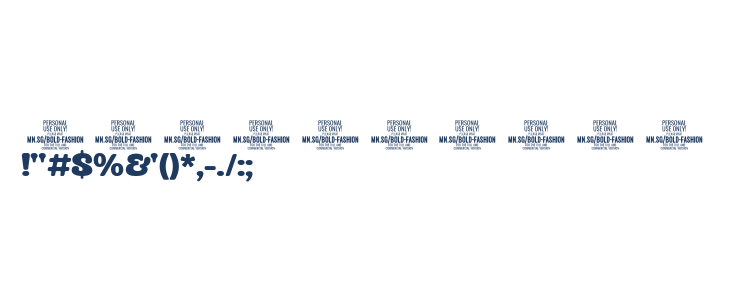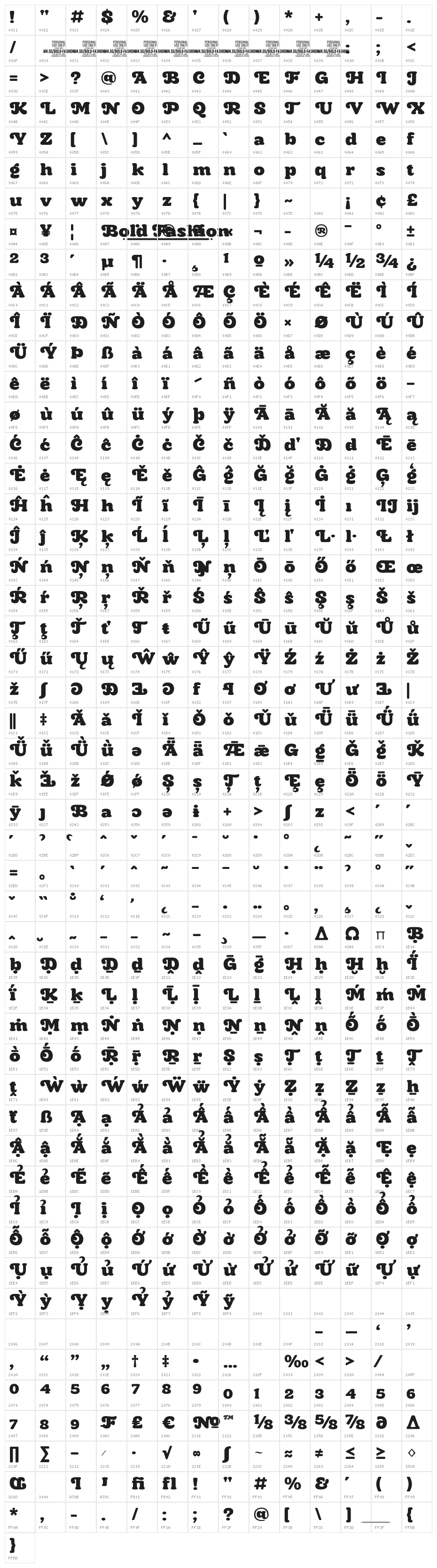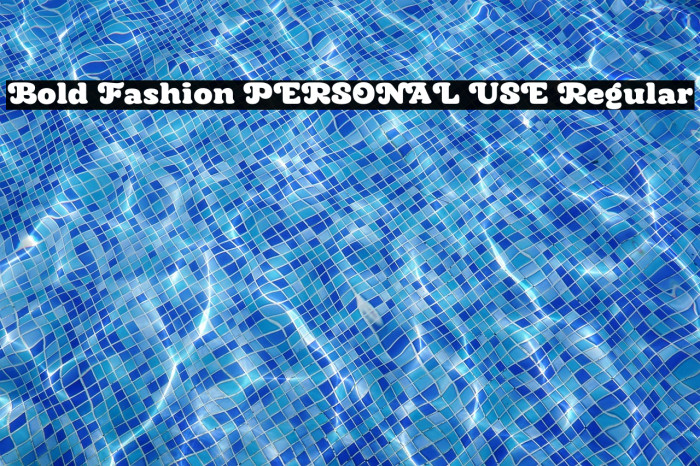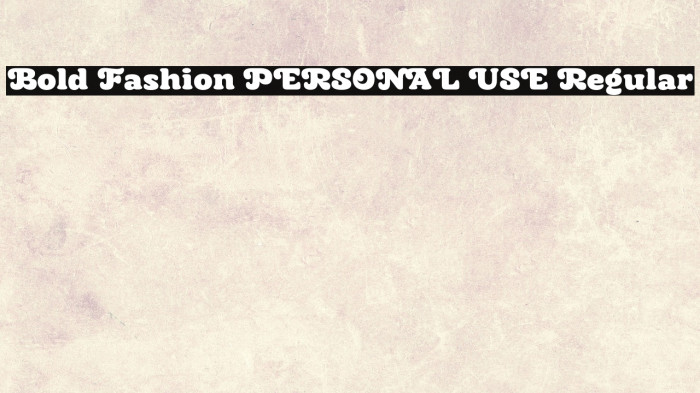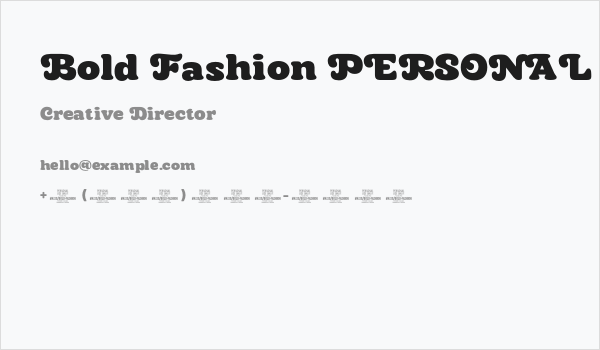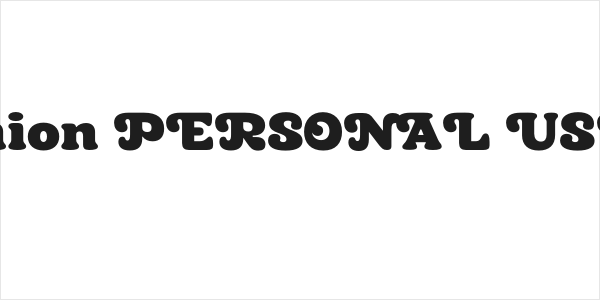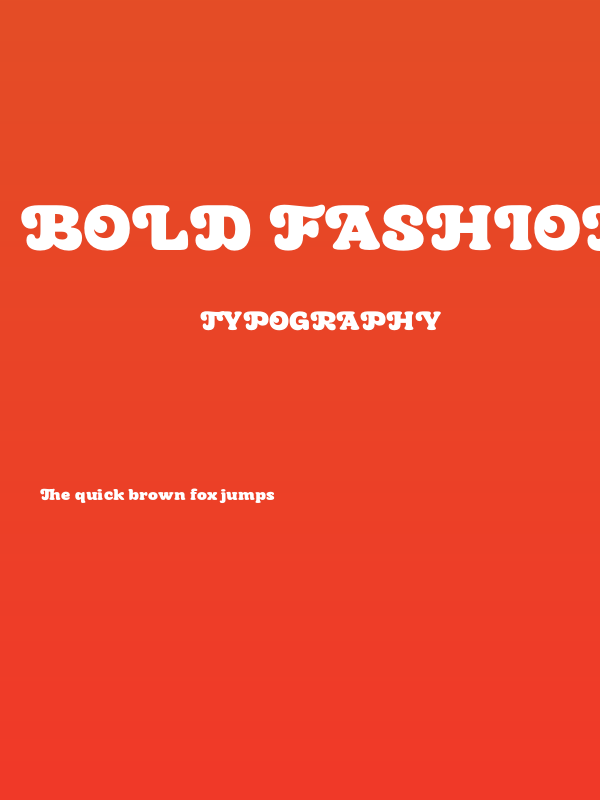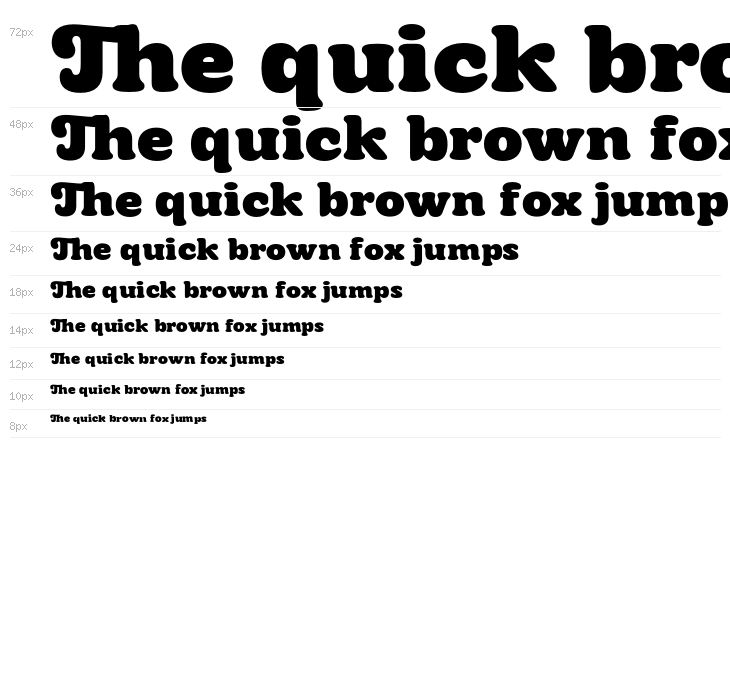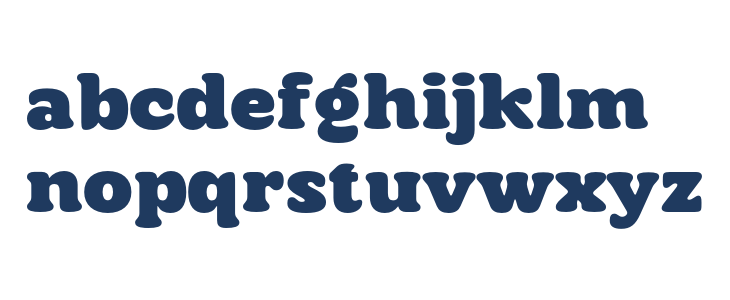
Bold Fashion PERSONAL USE Regular Font
Bold Fashion PERSONAL USE Regular Description
This font features a bold and playful design with thick, rounded strokes that give it a friendly and approachable appearance. The characters have a consistent weight, contributing to a uniform and cohesive look. The uppercase and lowercase letters maintain a similar width, enhancing readability. Special characters are designed with the same boldness, ensuring they stand out effectively. The overall style is modern with a touch of whimsy, making it suitable for creative and informal projects.
| Overall Style | Modern, Whimsical |
| Proposed Projects | Ideal for children's books, playful branding, posters, and creative social media graphics. |